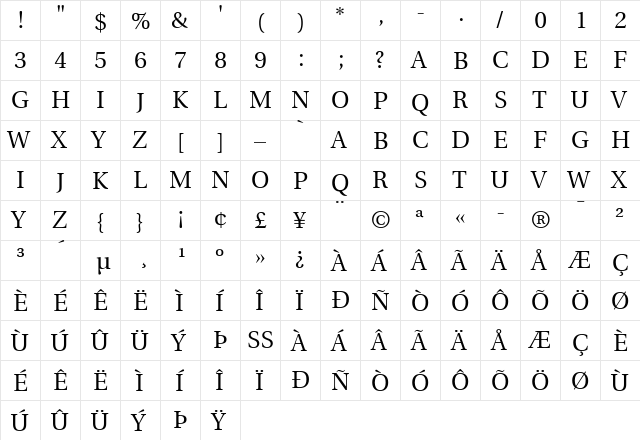
Utopia Titling Regular
Design Context for Utopia Titling Typeface
Utopia Titling takes a measured approach to typography — its balanced proportions and neutral character make it a reliable workhorse for both digital and print work.